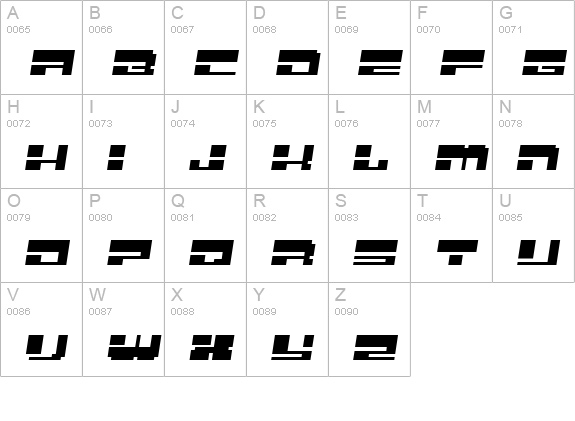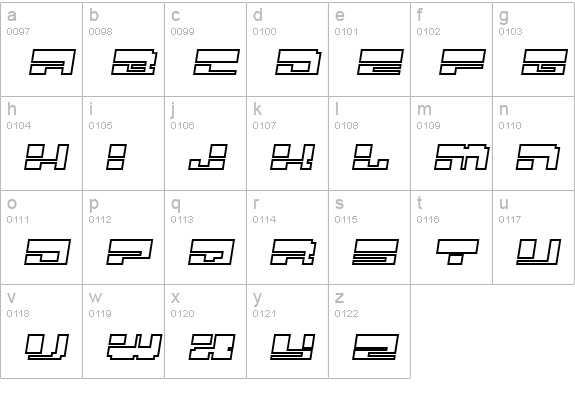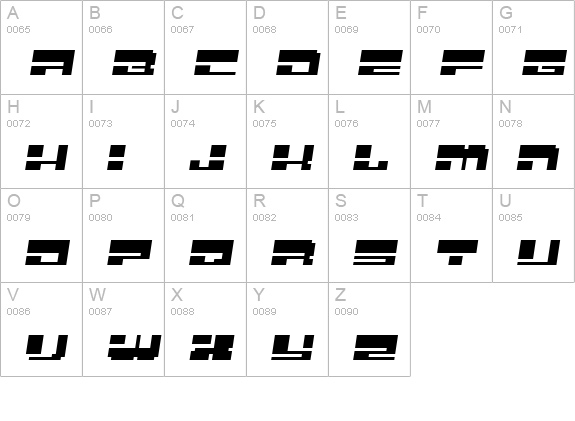
mtiza Italic Font Details
mtiza Italic is a distinctive, italic variant in the mtiza typeface family \xE2\x80\x94 well suited to design and typography projects.
Introducing Mtiza Italic font - a sleek and stylish typeface that exudes elegance and sophistication. With its slanted and graceful letterforms, Mtiza Italic adds a touch of modernity to any design project. This versatile font is perfect for creating striking headlines, elegant logos, and eye-catching branding materials. What's even better is that Mtiza Italic font is completely free to use! You can easily download it at FontsMarket.com and start incorporating it into your projects today. Don't miss out on this fantastic opportunity to enhance your designs with the beauty and versatility of Mtiza Italic font.